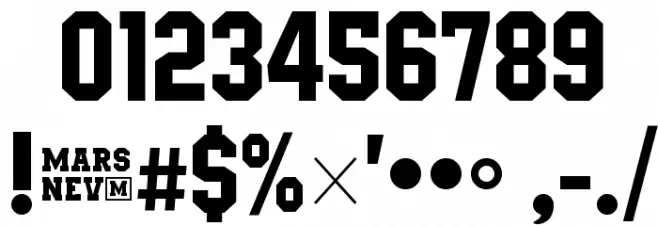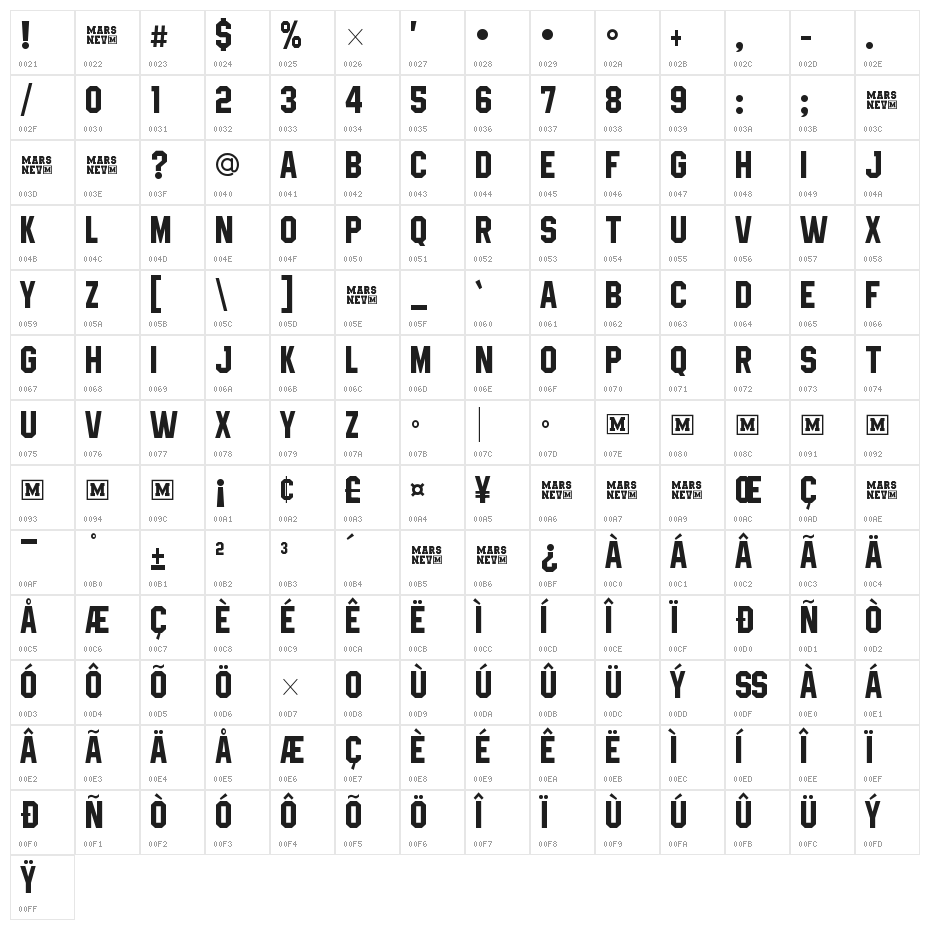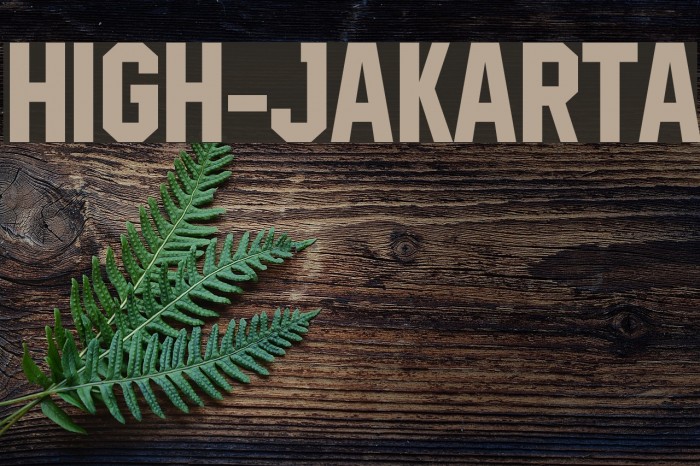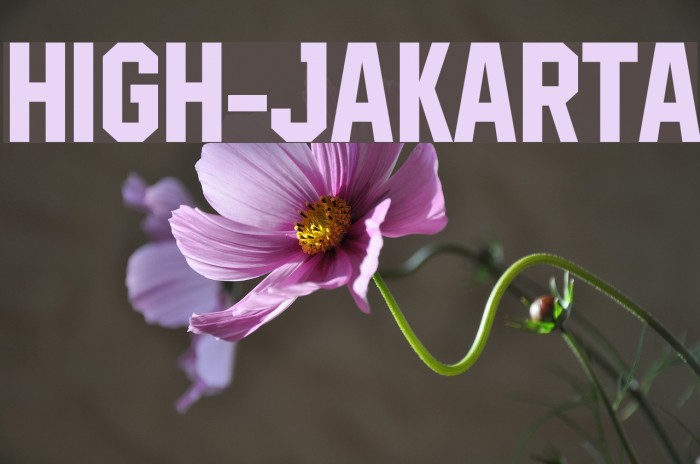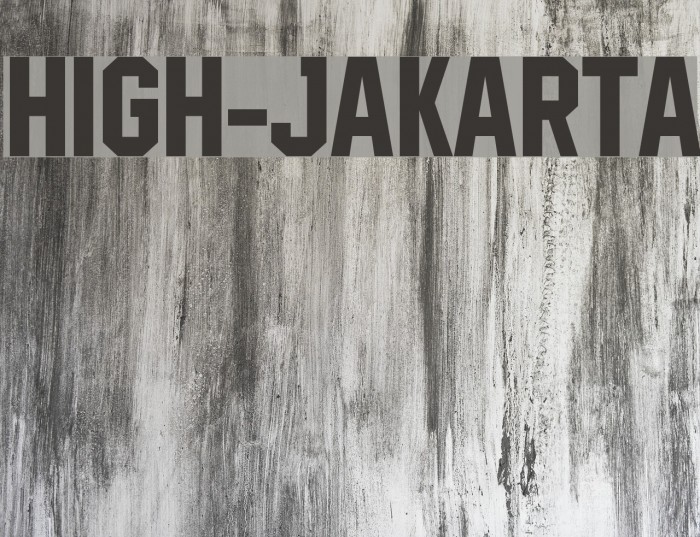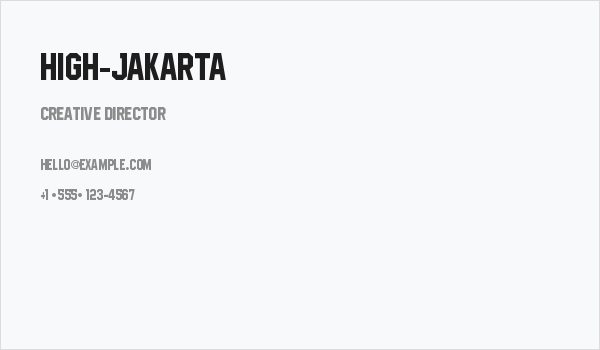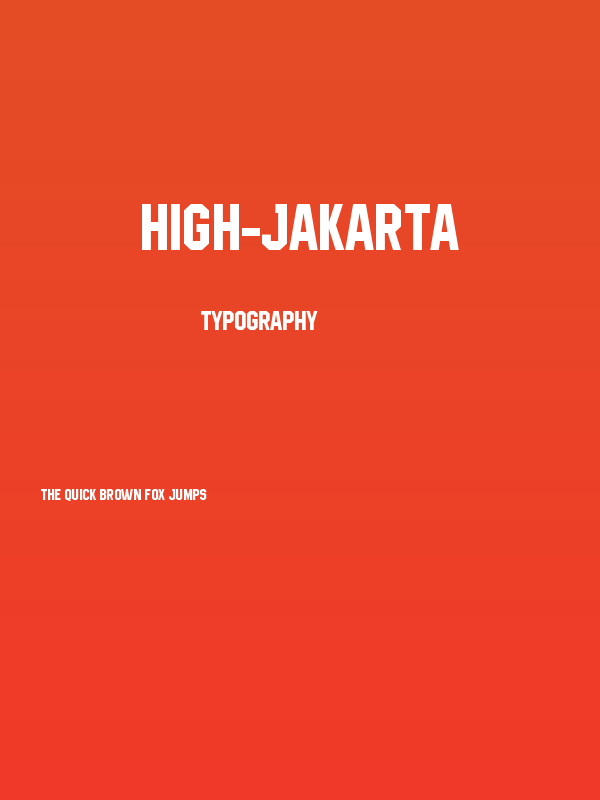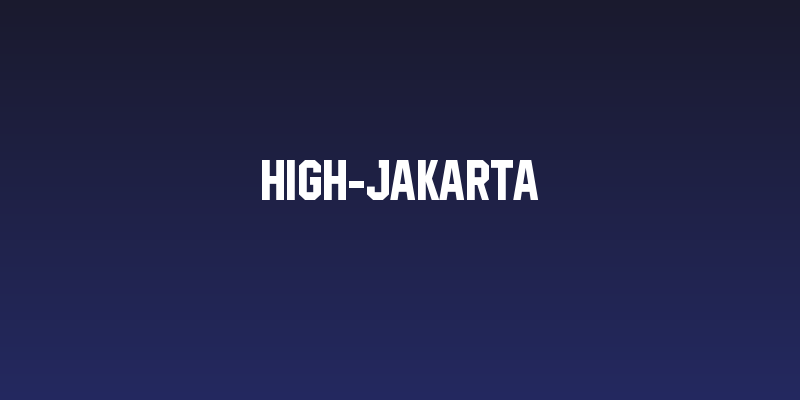
High-Jakarta Font
High-Jakarta Description
This font features a bold and impactful design with strong geometric shapes and a solid structure. The uppercase letters are uniform in height, with sharp angles and a consistent stroke width that conveys a sense of strength and stability. The numerals and special characters maintain this robust style, ensuring a cohesive appearance across all elements. The font's design is reminiscent of industrial or sports themes, making it ideal for projects that require a bold and assertive visual presence. Its clear and legible form ensures readability even at smaller sizes, while the boldness makes it stand out in larger formats.
| Proposed Projects | Ideal for sports branding, industrial design, posters, and headlines that require a strong visual impact. |